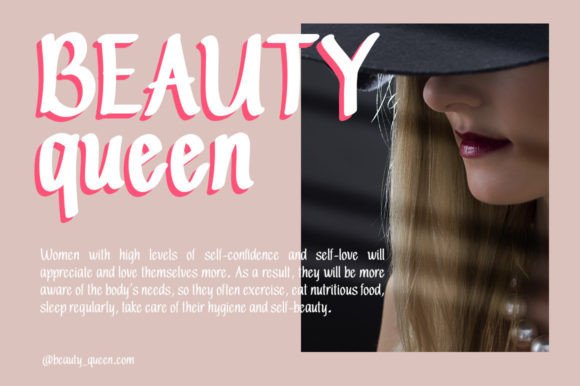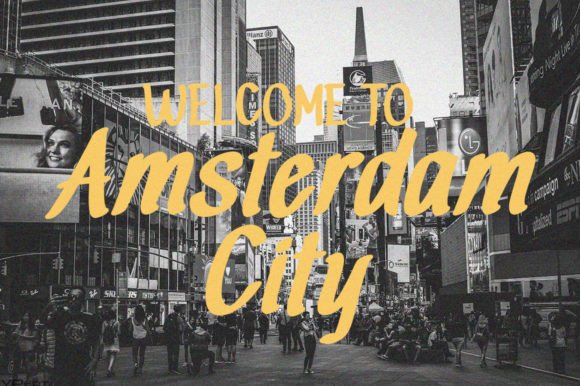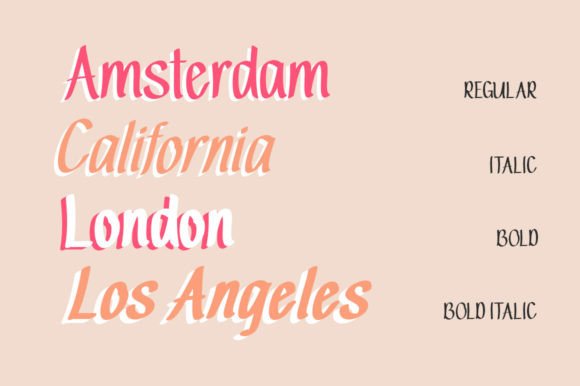
Introduction to Jakarta Culture Font Font
Fonts play a crucial role in design, and the Jakarta Culture Font font is a typeface that brings both character and versatility to any project. Whether you’re working on a branding project, a website, or a print design, the Jakarta Culture Font font offers a unique style that can elevate your work.
Jakarta Culture is a very fun yet elegant duo font (display and handwritten) that is guaranteed to make your designs stand out.
It is perfect for logos, printed quotes, invitations, cards, product packaging, headers, weddings, and anything else you can imagine .
Key Features of Jakarta Culture Font Font
Why Choose Jakarta Culture Font Font?
The Jakarta Culture Font font is more than just a typeface – it’s a design tool that helps you communicate your message with style and clarity. Its unique character set and versatile design make it suitable for a wide range of applications, from elegant invitations to bold headlines.
With its carefully crafted letterforms and balanced proportions, the Jakarta Culture Font font ensures readability and visual appeal across all mediums.
What makes Jakarta Culture Font font special?
The Jakarta Culture Font font stands out with its unique design, exceptional readability, and versatility across various design applications.